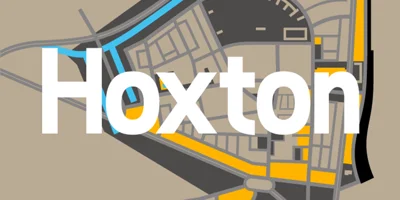
Hoxton Font
If you're looking for a modern and versatile sans-serif typeface with a stylish, urban flair, Hoxton Font is an excellent choice. This contemporary font combines clean lines with rounded edges, making it ideal for branding, editorial design, web content, and any project that calls for a sleek, professional look.
Hoxton features smooth letterforms with a geometric structure, giving it a friendly yet refined appearance. Its versatility makes it suitable for both large display text and body copy, making it a great option for websites, posters, advertising, and packaging.
The font’s modern, approachable design works well in creative industries, startups, or any design that aims to strike a balance between professionalism and approachability. Hoxton’s balanced proportions and simplicity ensure readability while maintaining a stylish, minimalistic aesthetic.